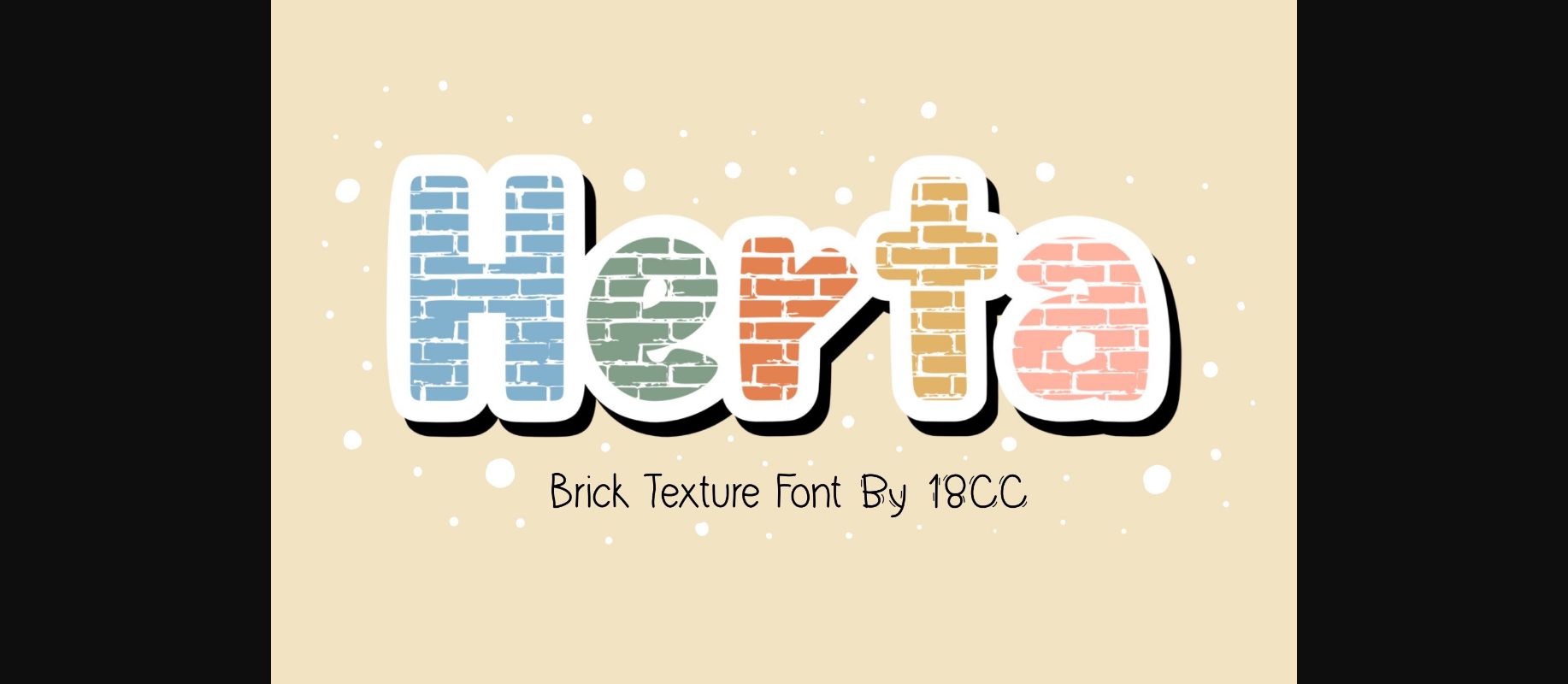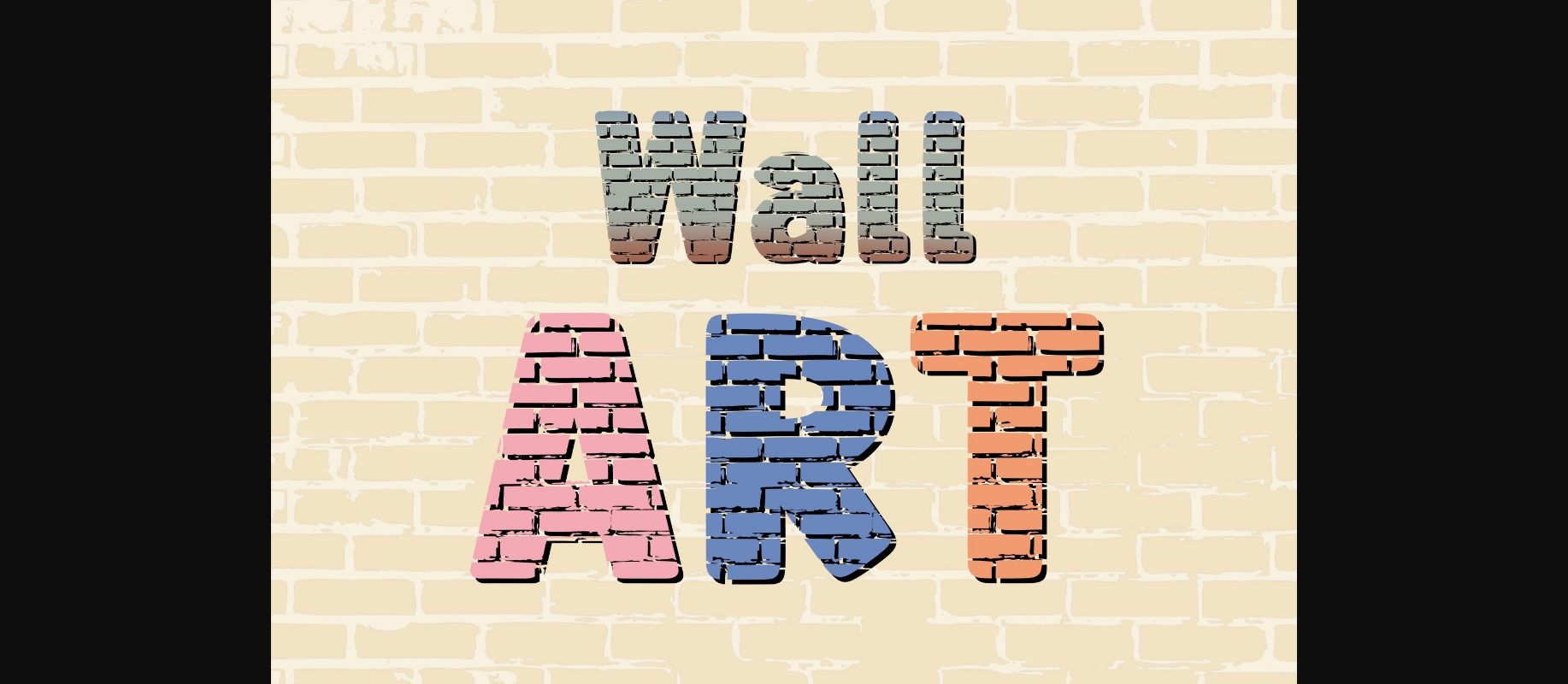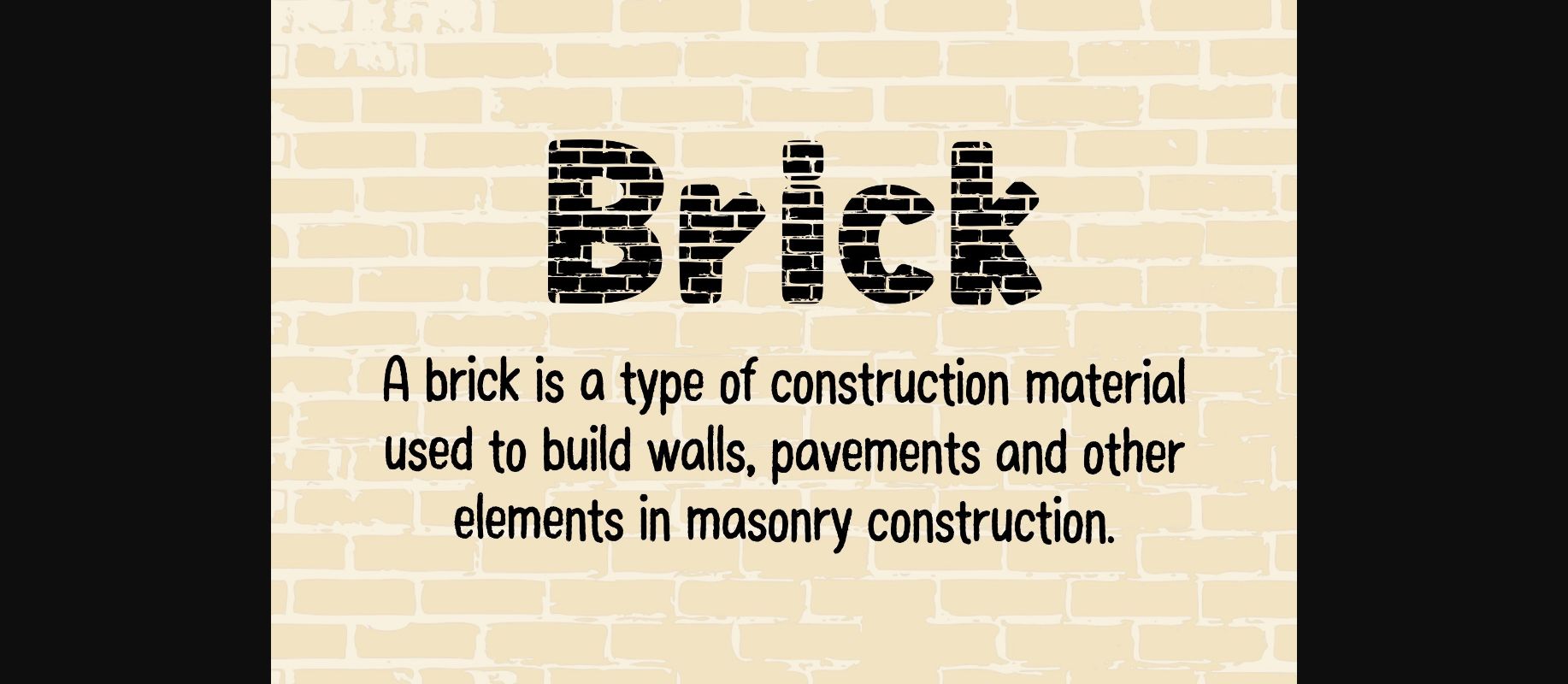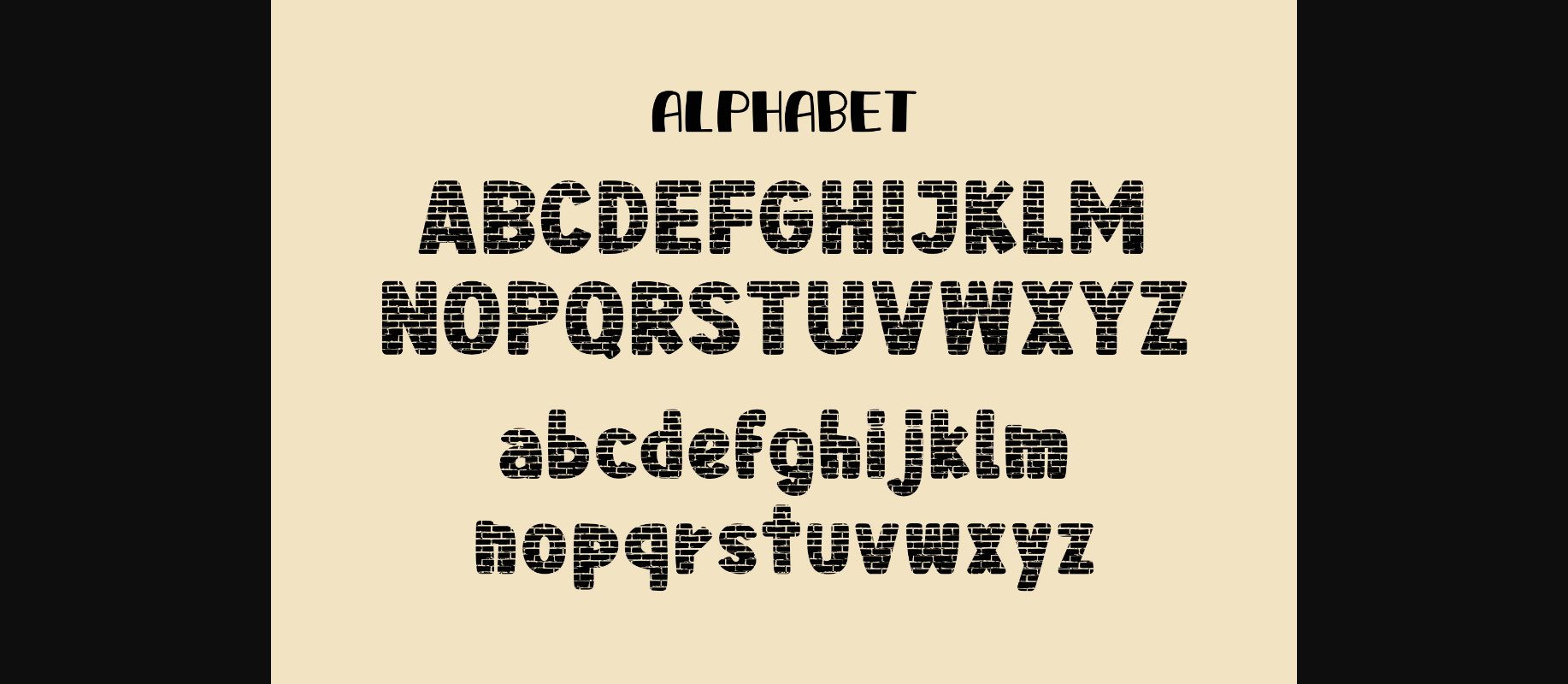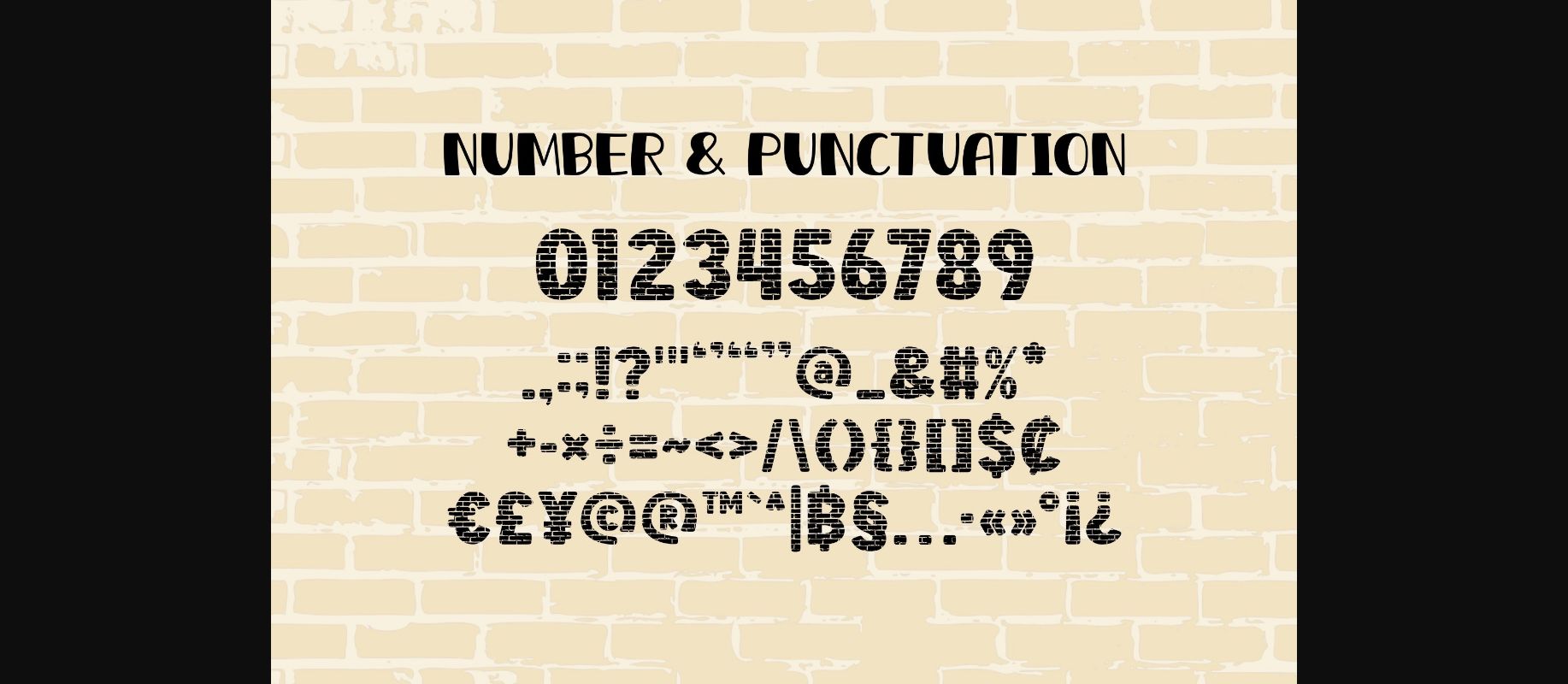
About Herta Font
Herta is an interesting decorative font featuring cute brick-styled characters for an awesome look! Use this creative typeface for construction companies, marketing materials, social media posts, and others!